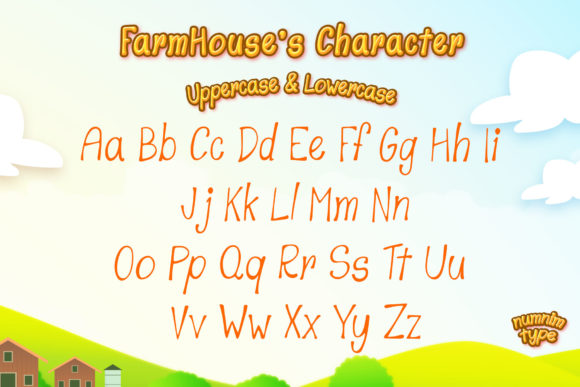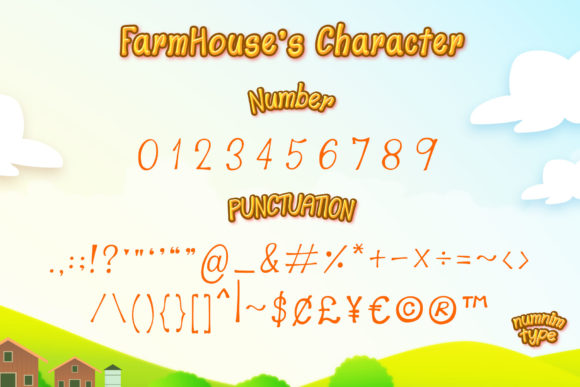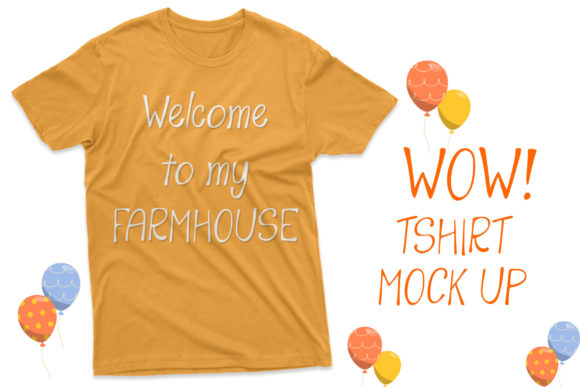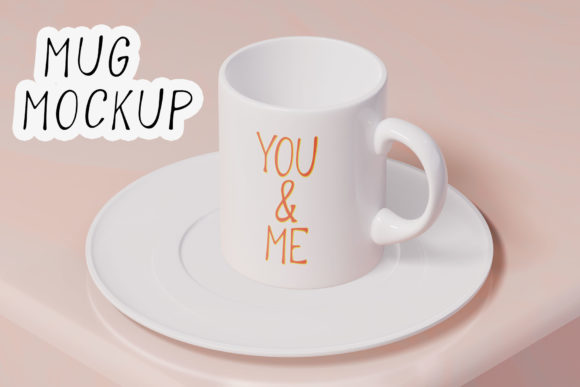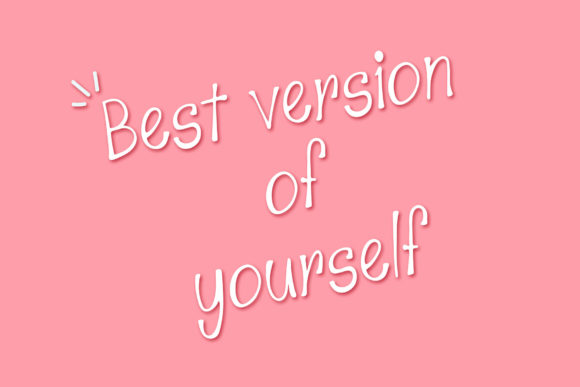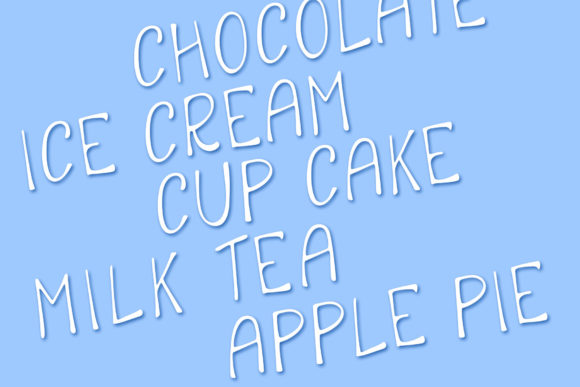
Introducing Farmhouse Font: The Perfect Handwritten Companion for Designers and Crafters
Are you on the hunt for a font that exudes warmth, friendliness, and a touch of rustic charm? Look no further than Farmhouse Font, a delightful handwritten font that’s perfect for designers, crafters, and creatives of all kinds. In this article, we’ll dive into the world of Farmhouse Font, exploring its features, uses, and benefits, as well as provide tips and inspiration for incorporating it into your next project.
Farmhouse Font is a beautiful, hand-crafted font that’s designed to bring a sense of coziness and approachability to your designs. With its flowing script and whimsical flair, this font is sure to capture the hearts of anyone who lays eyes on it. Whether you’re looking for a font to use on Instagram, a calligraphy script for DIY projects, or a special something to elevate your branding, Farmhouse Font is the perfect choice.
- Cute and Friendly: Farmhouse Font is designed to be warm and inviting, making it perfect for projects that require a personal touch.
- Handwritten Script: This font features a beautiful, handwritten script that’s perfect for adding a touch of elegance and sophistication to your designs.
- Versatile: Farmhouse Font can be used for a wide range of projects, from Instagram graphics and DIY crafts to branding and marketing materials.
- Easy to Read: Despite its whimsical nature, Farmhouse Font is surprisingly easy to read, making it perfect for use in body text and other applications where legibility is key.
Uses for Farmhouse Font
So, what can you use Farmhouse Font for? The possibilities are endless! Here are a few ideas to get you started:
- Instagram Graphics: Add a touch of personality to your Instagram feed with Farmhouse Font. Use it to create eye-catching captions, quotes, and other graphics that showcase your brand’s unique voice.
- DIY Projects: Farmhouse Font is perfect for DIY projects like crafting, scrapbooking, and home decor. Use it to add a personal touch to your creations and make them truly special.
- Branding and Marketing: If you’re looking for a font that will help your brand stand out, Farmhouse Font is a great choice. Use it to create logos, business cards, and other marketing materials that showcase your brand’s personality.
- Stationery and Invitations: Farmhouse Font is also perfect for creating beautiful stationery and invitations. Use it to add a touch of elegance and sophistication to your correspondence.
Now that you know a little bit about Farmhouse Font, here are some tips for using it in your designs:
- Pair it with Other Fonts: Farmhouse Font looks great when paired with other fonts, especially bold and modern sans-serifs. Experiment with different combinations to find the perfect look for your project.
- Use it in Headlines and Titles: Farmhouse Font is perfect for use in headlines and titles, where its whimsical nature can really shine.
- Experiment with Colors: Farmhouse Font looks great in a wide range of colors, from soft pastels to rich and bold hues. Don’t be afraid to experiment and find the perfect color combination for your project.
In conclusion, Farmhouse Font is a beautiful and versatile handwritten font that’s perfect for designers, crafters, and creatives of all kinds. With its cute and friendly vibe, flowing script, and whimsical flair, this font is sure to capture the hearts of anyone who lays eyes on it. Whether you’re looking for a font for Instagram, a calligraphy script for DIY projects, or a special something to elevate your branding, Farmhouse Font is the perfect choice. So why wait? Download Farmhouse Font today and start turning your creative ideas into true pieces of art!